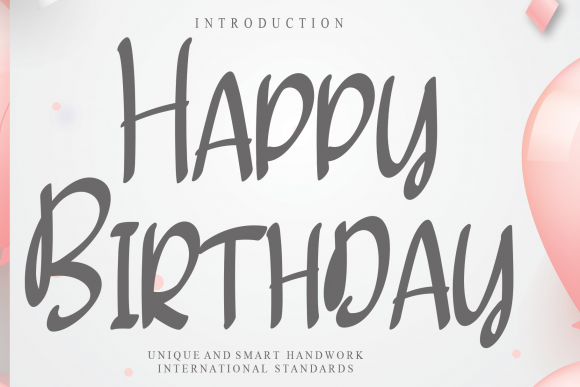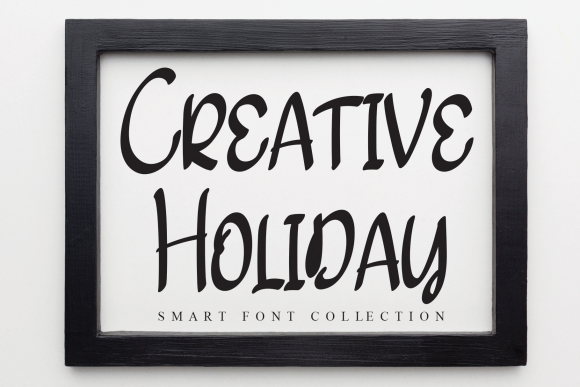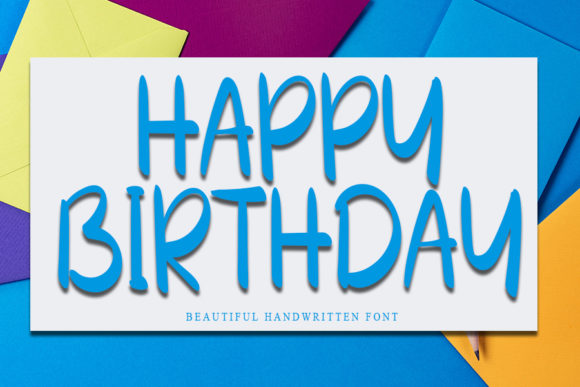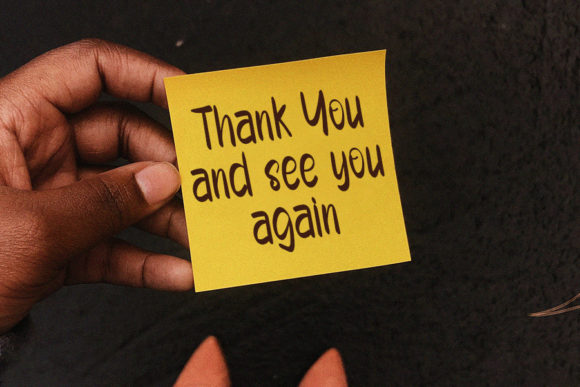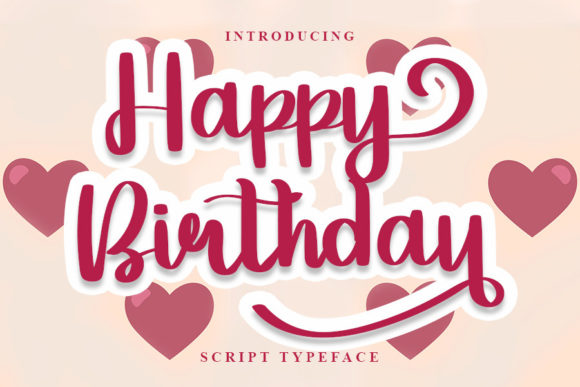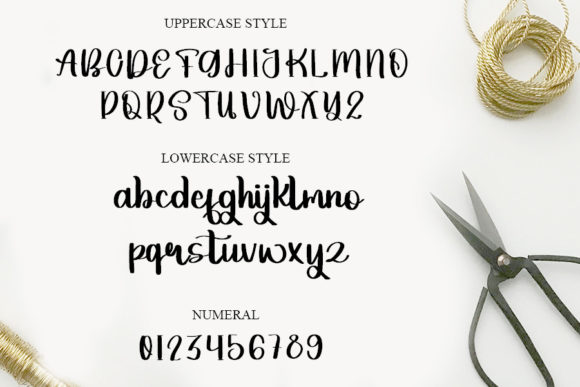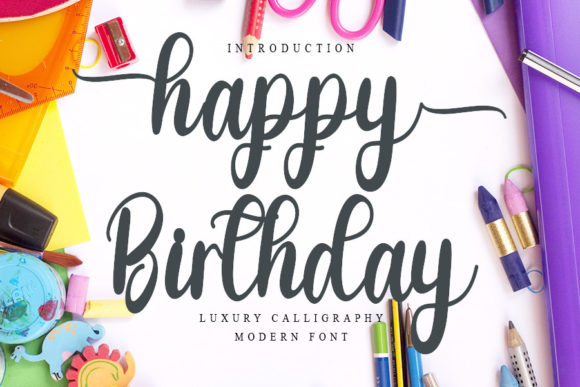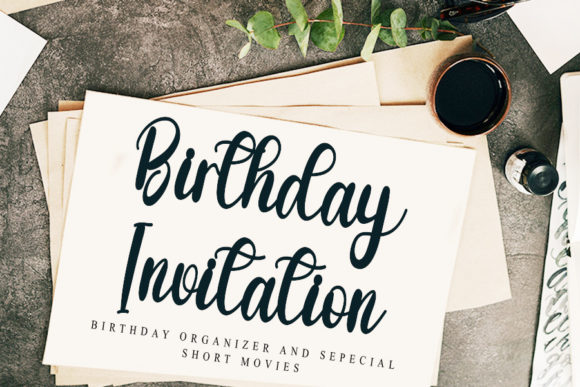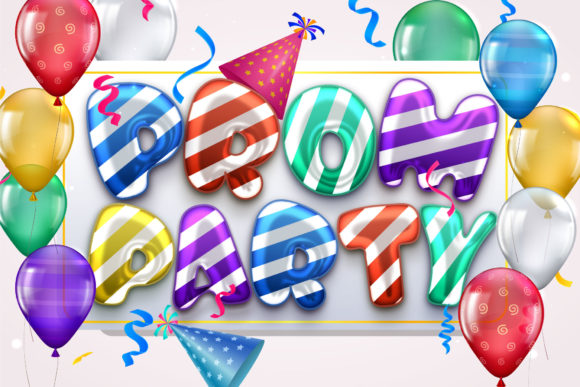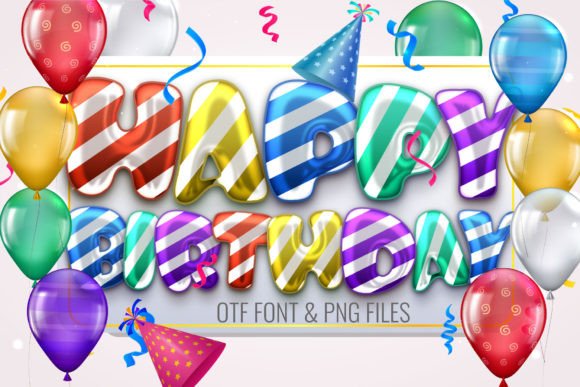
21 Best Happy Birthday Fonts to Elevate Your Celebratory Designs
Choosing the right typography can turn a standard design into a memorable celebration. Whether you are crafting personalized greeting cards, decorating a party venue, or designing digital invitations, the right style sets the tone immediately. In this guide, we explore the most versatile and eye-catching Happy Birthday Fonts to make your creative projects pop.
Choosing the Best Happy Birthday Fonts for Your Next Project
Selecting the perfect typeface is about matching the personality of the event. From whimsical handwritten styles to bold, display-heavy characters, our curated list ensures you have the right aesthetic for every age group and theme.
Happy Birthday Duo Font
This charming duo features two complementary styles that are perfect for creating festive greeting cards, party decor, and unique packaging designs. Its playful and expressive character makes this one of the most versatile Happy Birthday Font available today.
Happy Birthday Font
This playful festive font is perfect for crafting greeting cards, birthday party decor, and eye-catching headers. Its unique style brings joy and dynamic flair, proving why it remains a top choice among high-quality Happy Birthday Font.
Happy Birthday Font
This playful and festive typeface is perfect for creating greeting cards, party decorations, and thematic design projects. It is a fantastic example of how professional Happy Birthday Font can elevate your graphic compositions.
Happy Birthday Font
This playful and festive typeface is perfect for crafting birthday cards and children’s designs. Among the various Happy Birthday Font available, this one stands out for its vibrant and engaging character.
Happy Birthday Font
This charming handwritten font brings a sense of joy and whimsy to any celebration. It is an ideal addition to your collection of festive Happy Birthday Font for kids’ parties and social stationery.
Happy Birthday Font
Friendly letterforms make this font a standout for any design project. If you are looking for Happy Birthday Font that feel vibrant and memorable, this is a perfect choice.
Happy Birthday Font
Dynamic letterforms bring a cheerful spirit to your creative projects. Utilize these professional Happy Birthday Font for posters, invitations, and event signage.
Happy Birthday Font
Perfect for crafting unique, birthday-themed designs. Incorporating these Happy Birthday Font ensures your party stationery looks professional and fun.
Happy Birthday Font
Ideal for children’s signage, this design adds a cheerful touch to your party decor. Explore these diverse Happy Birthday Font for all your celebratory needs.
Happy Birthday Set Font
This set features creative typefaces that add a touch of celebration to any design. If your goal is to find high-end Happy Birthday Font for your project, this collection is a must-have.
Happy Birthday Font
This festive selection brings a celebratory atmosphere to any project. As one of the most reliable Happy Birthday Font for invitations, this style remains a favorite.
Happy Birthday Font
Bring a sense of joy to your custom work. These professional font are designed to help you create stunning, personalized greeting cards.
Happy Birthday Font
Bring a sense of joy and whimsy to any design project. If your goal is to source vibrant Font for your next celebration, this typeface is a perfect fit.
Happy Birthday Font
Lighthearted and perfect for various children’s projects. Add these fonts to your toolbox to ensure every creative work spark joy.
Happy Birthday Font
Cheerful and perfect for thematic invitations, this typeface is a must for those who love high-quality fonts for their design workflow.
Happy Birthday Font
Friendly and versatile for various birthday themes. Adding professional fonts like this one makes creating posters and decorations an effortless task.
Happy Birthday Font
Celebratory and fun, this is a top-tier choice for invitations. Incorporate these specialized Happy Birthday Fonts whenever you want your work to shine.
Happy Birthday Font
Ideal for children’s event decorations, this cheerful typeface belongs in any collection of Birthday Fonts.
Happy Birthday Font
Vibrant and professional, this font is perfect for headlines. Always keep a set of reliable Happy Birthday Font handy to elevate your creative projects.
Happy Birthday Font
Designed for ease of use in invitations and stationery. These fonts are perfect for any designer looking to create vibrant, festive graphics.
Happy Birthday Font
Display-oriented and festive, this is the final choice for creating impactful decorations. This adds the perfect finishing touch to any collection of Happy Birthday Font.
Conclusion
Selecting the ideal typeface for a celebration can significantly enhance your designs. Whether you prefer clean, playful, or elegant styles, this comprehensive collection offers something for every creative vision. By integrating these high-quality options, you can ensure that your greeting cards, posters, and invitations are ready to impress for any special occasion.